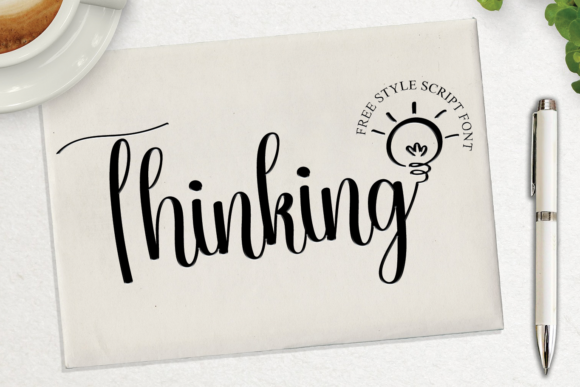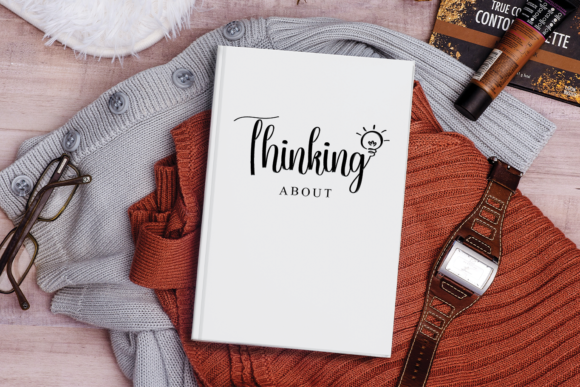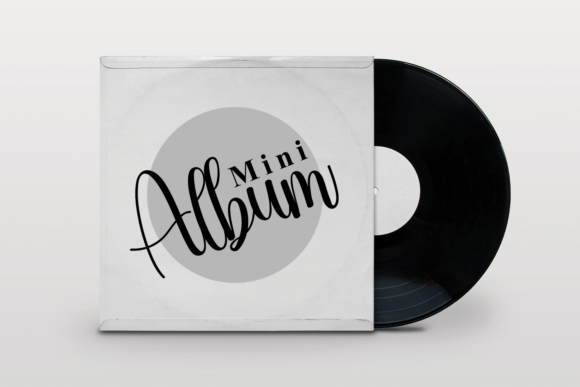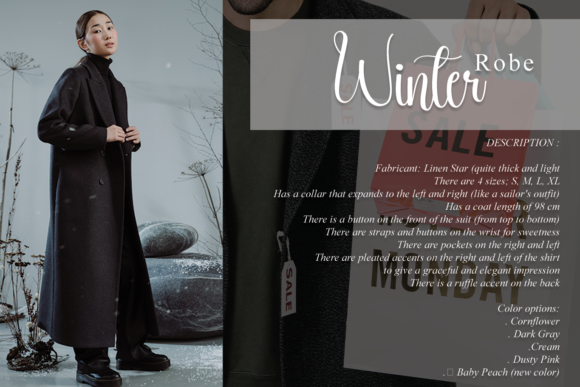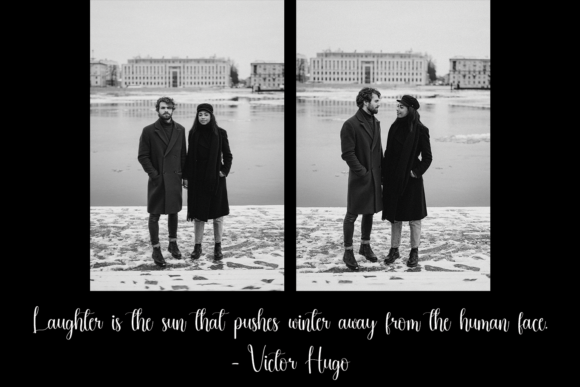
About Thinking Font
Thinking is a beautiful and refined script font. It has a classy, elegant, and modern look that can be used for logos, branding, invitations, stationery, wedding designs, social media posts, and much more!